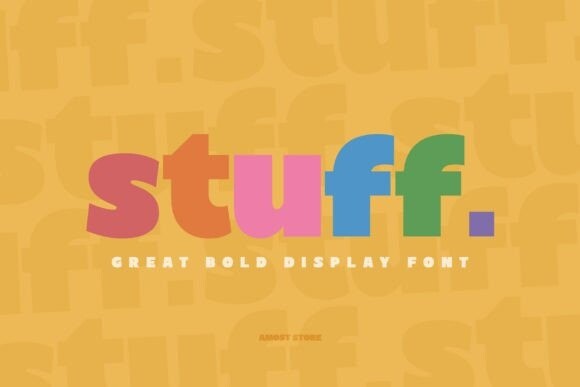
Stuff Font
Designer: AMost Store
Stuff Font, a perfect blend of classic vintage charm and bold modern aesthetics. This font features a clean style, making it an ideal choice for both display or product design. From advertising boards to product labeling and creative artwork, the versatility of Stuff. allows for a striking, effective application. Immerse yourself in the alluring beauty of the past with the crisp and contemporary vibe of today.